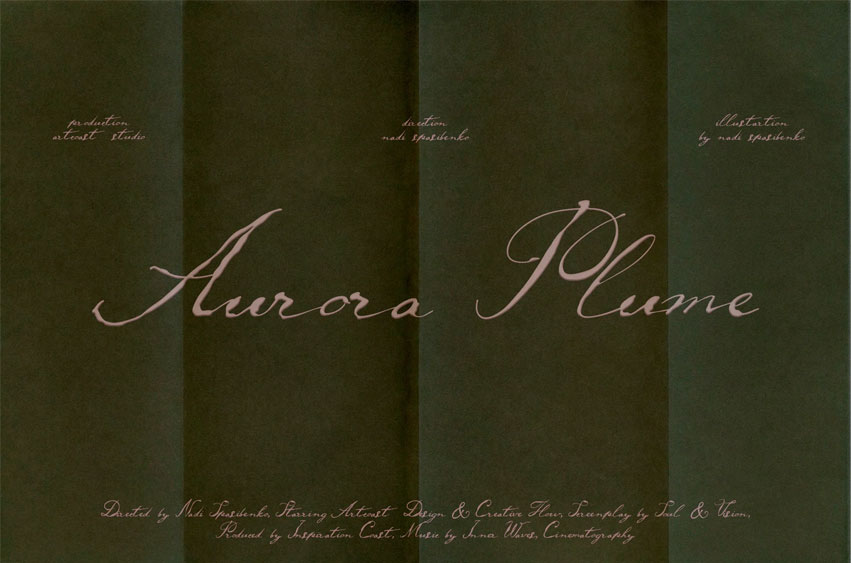
Aurora Plume Font
Aurora Plume Font is an ink calligraphy script font inspired by dip pen writing and handwritten letterforms. The font features flowing strokes, variable line weight, and subtle ink-style irregularities that replicate a natural handwriting effect.
This typeface is suitable for projects that require a calligraphic or handwritten appearance, including wedding stationery, branding materials, editorial layouts, and digital graphics.
Recommended Uses:
Wedding stationery: invitations, save-the-dates, RSVP cards, seating charts Branding and logos: fashion labels, cosmetics, skincare, and lifestyle products Editorial design: magazine layouts, book covers, author signatures Social media and digital graphics: quotes, blog headers, themed content Packaging: wine labels, chocolate packaging, perfume boxes
Design Note: This font pairs well with serif or sans-serif typefaces to create contrast in typography. It can be used across both print and digital formats.